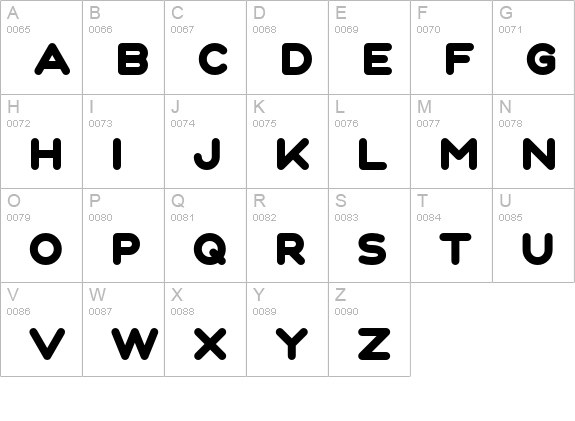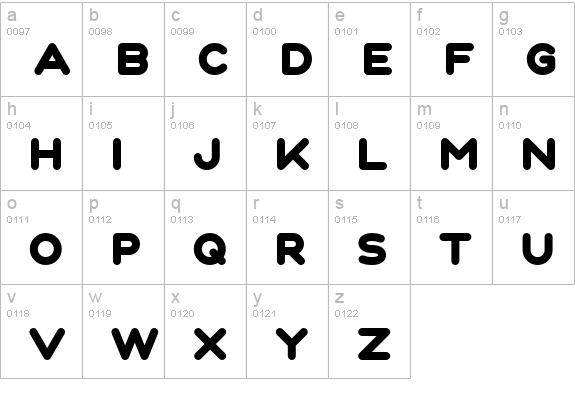
Fun City Level 3 Basic font is a playful and energetic typeface that is perfect for adding a fun touch to your designs. With its bold and rounded shapes, this font exudes a sense of whimsy and creativity. Whether you're working on a children's book, party invitation, or any other project that calls for a lighthearted vibe, Fun City Level 3 Basic font is sure to make your text pop. And the best part? This fantastic font is available for free download at FontsMarket.com. Don't miss out on the opportunity to add some fun to your designs with this delightful typeface. Download Fun City Level 3 Basic font today and let your creativity run wild!